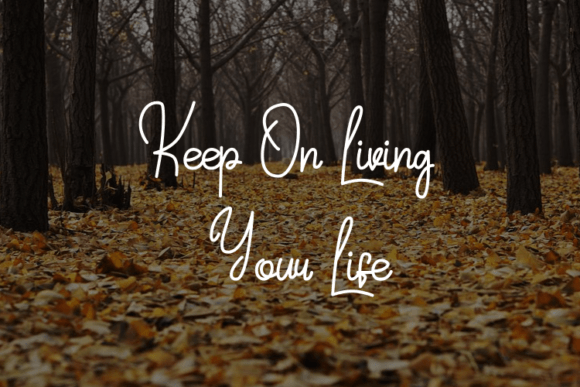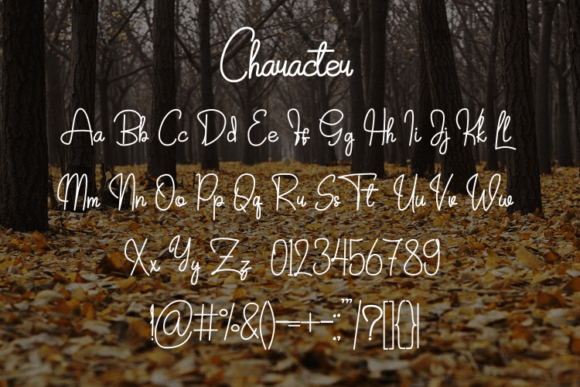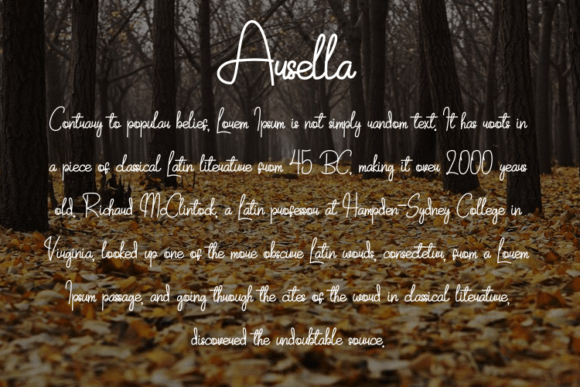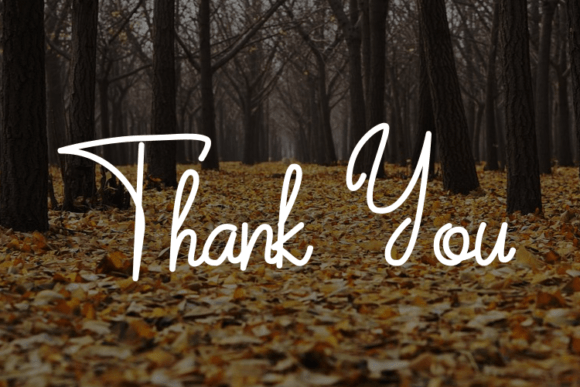
The Quest for the Perfect Font: How Arsella Stole My Heart
I still remember the frustration of working on a design project, hours spent searching for the perfect font that would bring my vision to life. My client wanted a playful, yet elegant touch for their branding, and I was determined to deliver. That’s when I stumbled upon Arsella Font, a cute and casual handwritten script font that has since become a staple in my design toolkit.
Arsella Font: A Beautifully Crafted Script Font
Arsella is a beautifully crafted script font, designed to bring a touch of personality to any design project. With its well-balanced characters and elegant strokes, it matches a wide pool of designs, from playful and casual to sophisticated and elegant.
My Honest Review of Arsella Font
What I Love About Arsella Font
- ✨ Beautifully crafted characters with a perfect balance of elegance and playfulness
- ✅ Easy to read, even at smaller font sizes
- 🎉 Supports OpenType features, glyphs, and stylistic alternates, giving you plenty of creative freedom
While Arsella Font is an excellent choice for many design projects, there are a few minor quirks to be aware of:
- 🤔 Limited availability of certain special characters, but these can often be substituted with alternatives
The Story Behind Arsella Font
Arsella Font was designed with the intention of creating a beautiful, elegant script font that would bring a touch of personality to any design project. The designer aimed to craft a font that would be both elegant and playful, making it suitable for a wide range of designs.
| Author | Eric Kusuma |
Q: What is Arsella Font best suited for?
A: Arsella Font is best suited for designs that require a touch of elegance and playfulness, such as branding, packaging, and marketing materials.
Q: Is Arsella Font easy to read?
A: Yes, Arsella Font is designed to be easy to read, even at smaller font sizes, making it suitable for body text and headings.